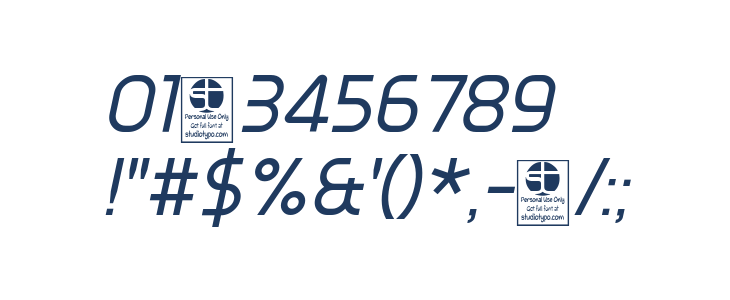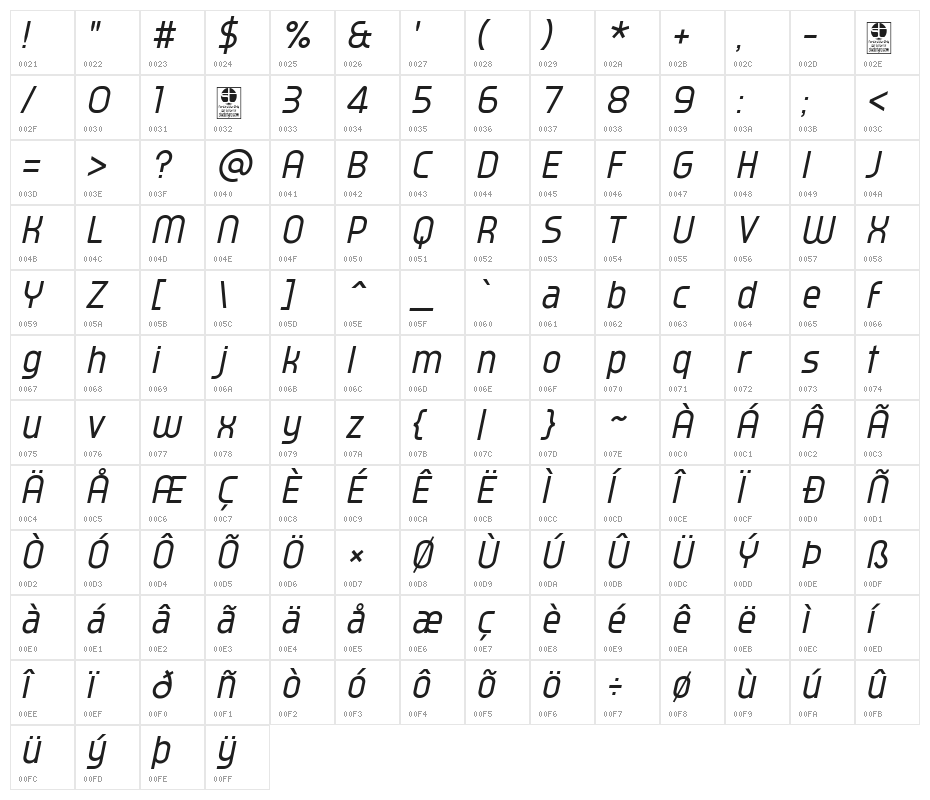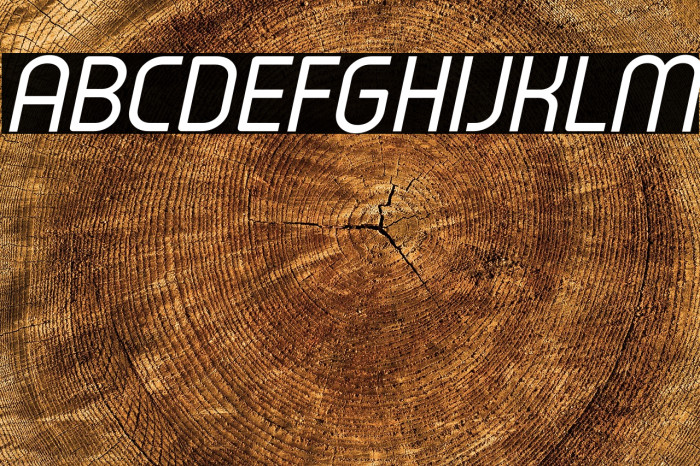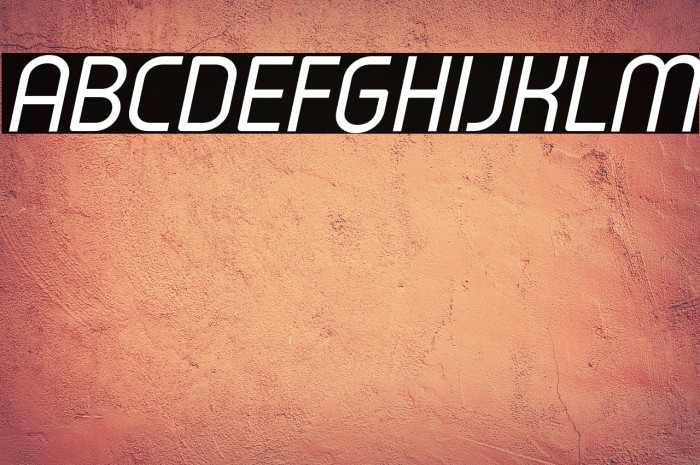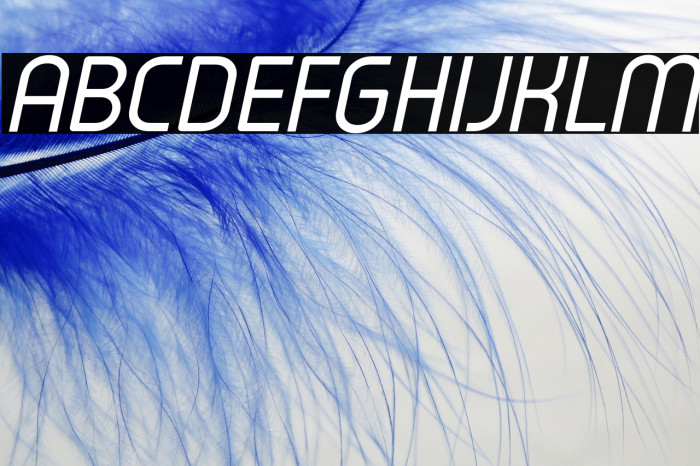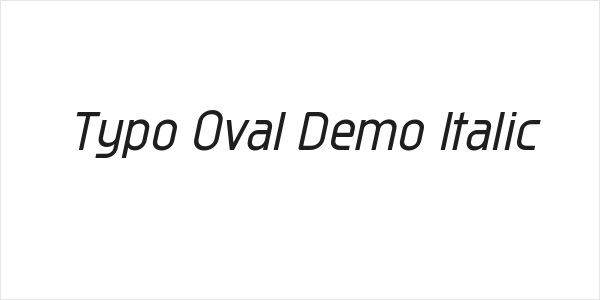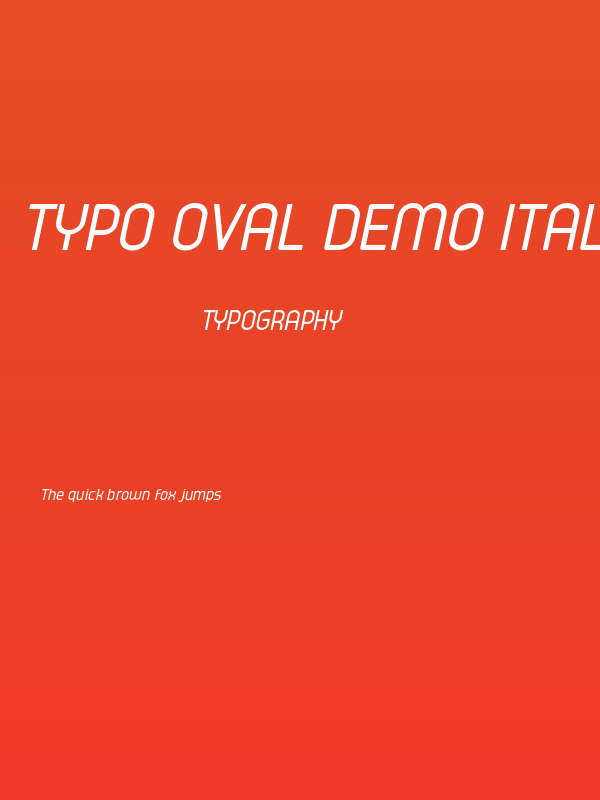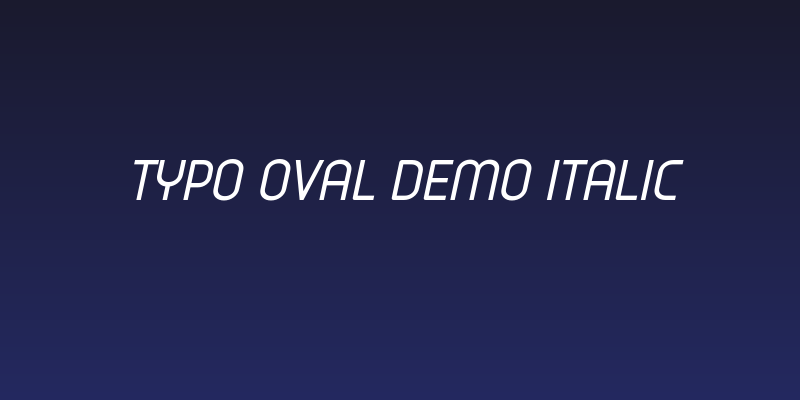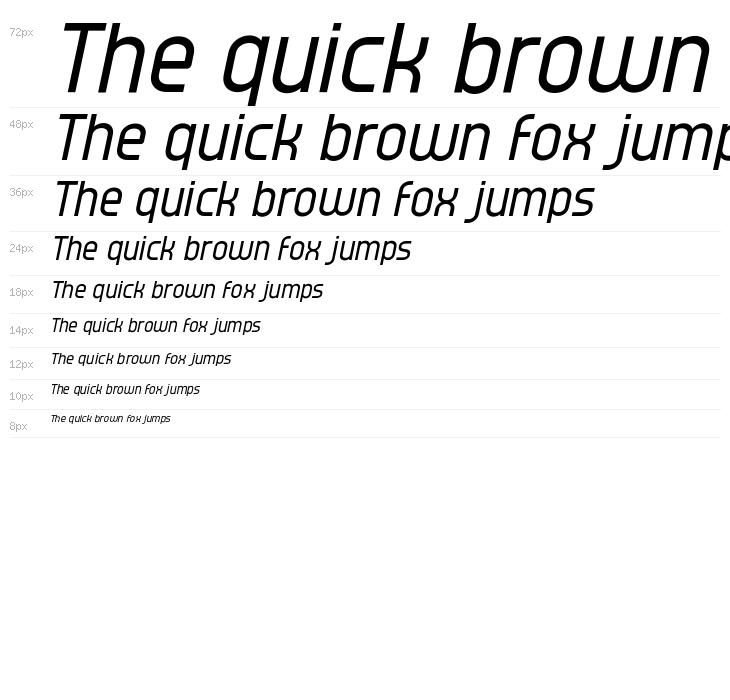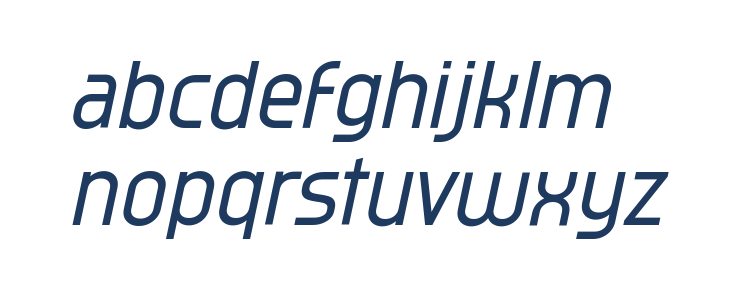
Typo Oval Demo Italic Font
Typo Oval Demo Italic Description
This font features a sleek, modern design with a subtle italic slant, giving it a dynamic and forward-moving appearance. The characters are crafted with smooth, rounded edges and a consistent stroke width, contributing to its clean and contemporary look. The uppercase and lowercase letters maintain a harmonious balance, while the numerals and special characters are designed with clarity and precision. This font is versatile, suitable for both digital and print media, and can enhance the visual appeal of any project with its stylish and professional aesthetic.